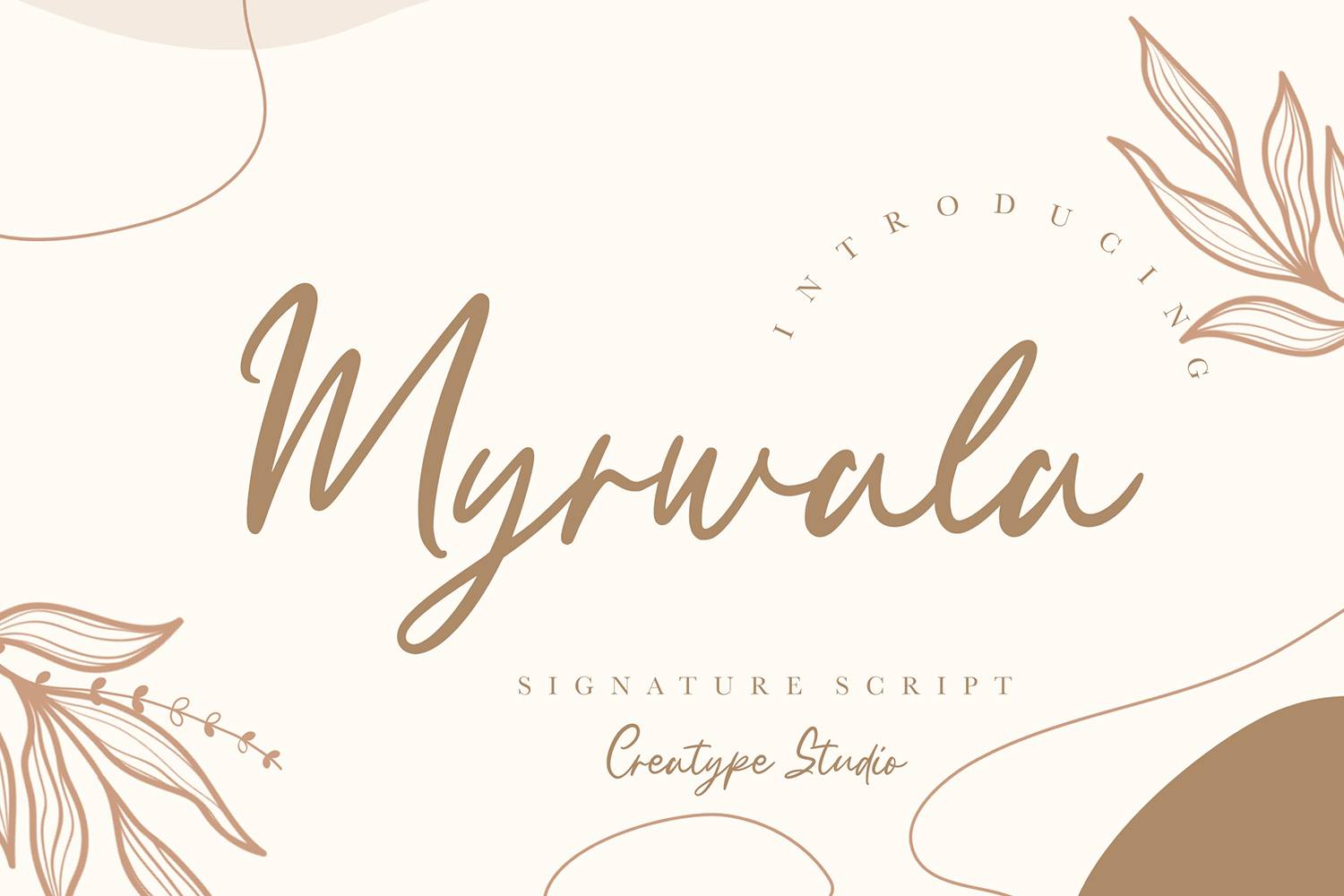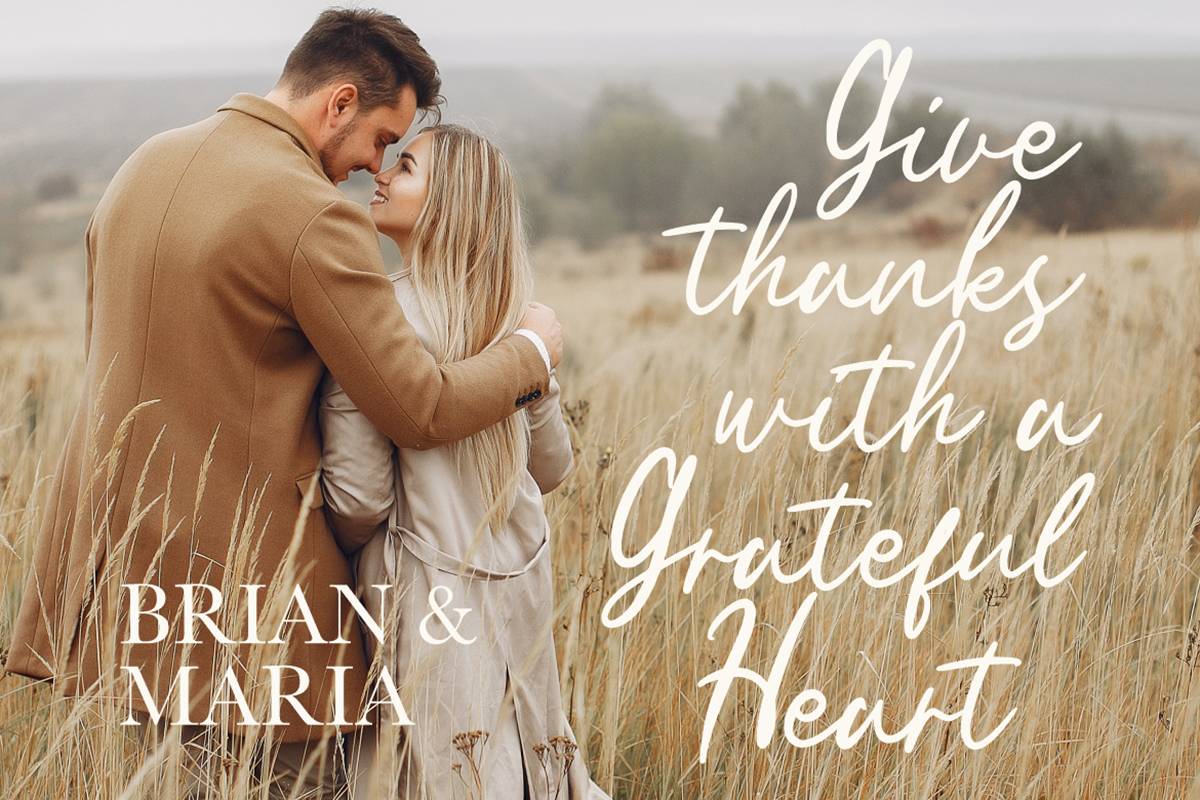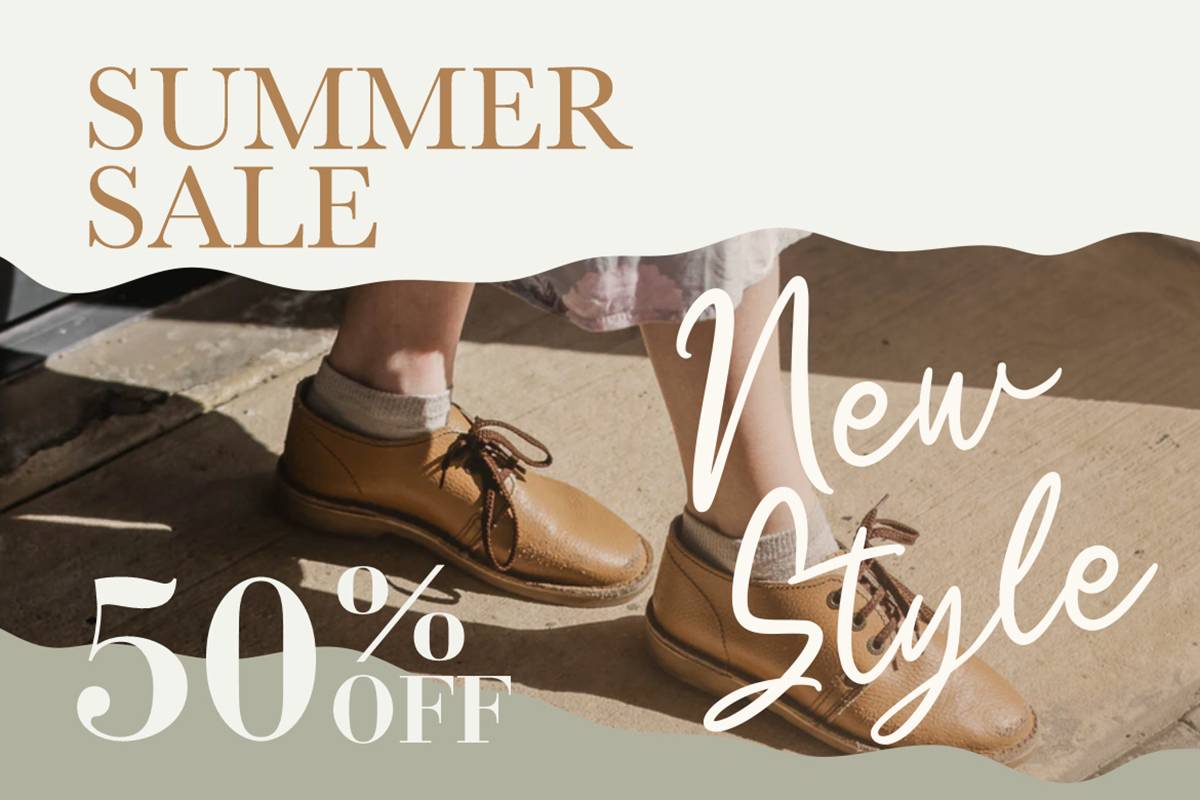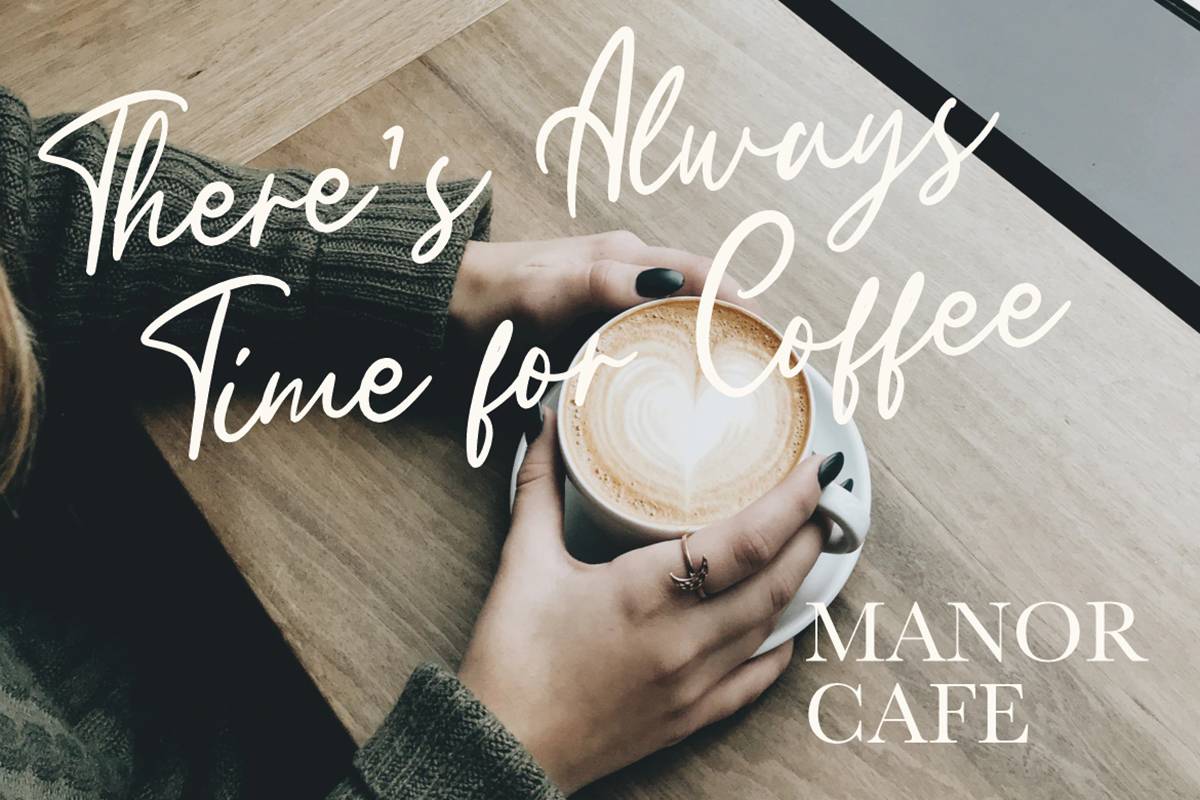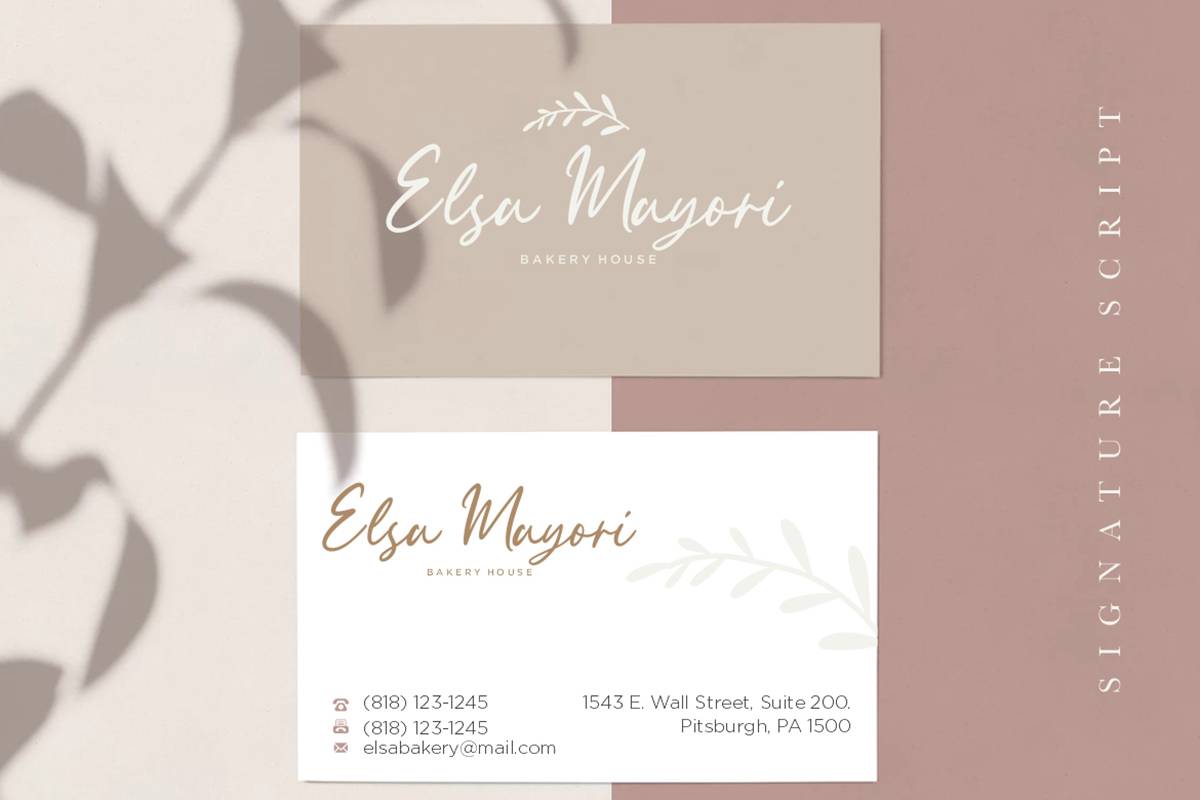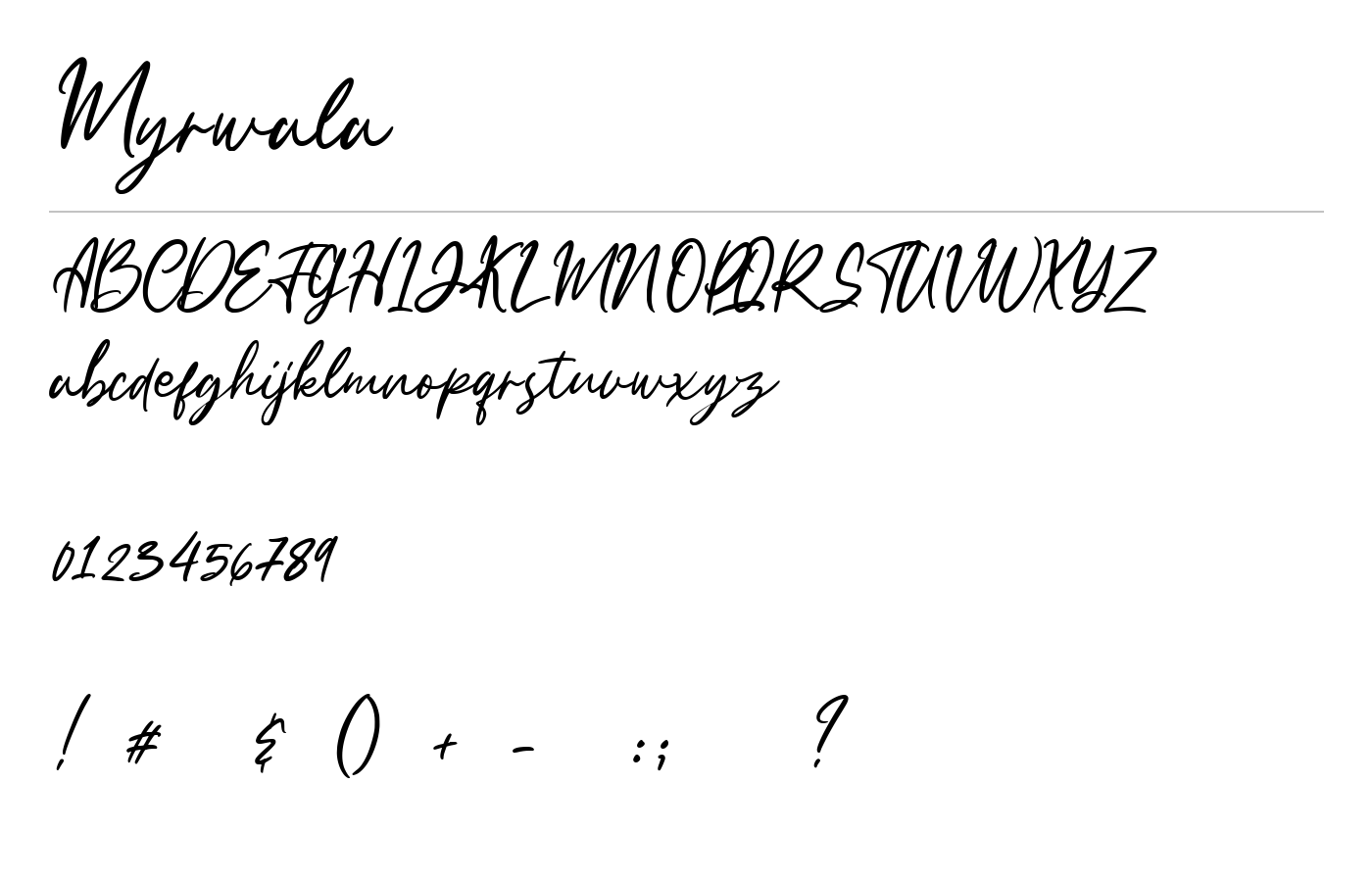
Myrwala is an elegant script font that exudes a natural, handwritten charm with its smooth, flowing strokes and moderate contrast. Its slender, slightly condensed letterforms and casual style make it perfect for creative projects needing a personal, stylish touch, such as invitations, branding, and editorial headlines. This font shines in any design where a warm, approachable yet refined feel is desired.
Myrwala Font
About Myrwala Font
| Font family | Myrwala Font |